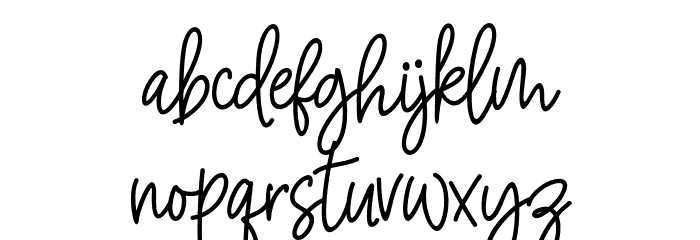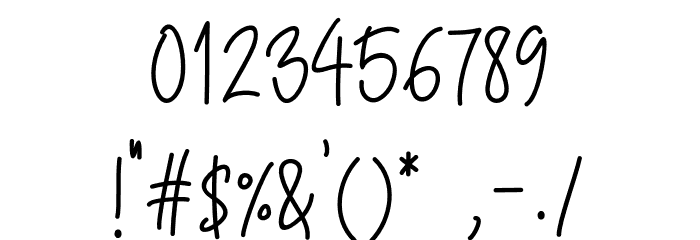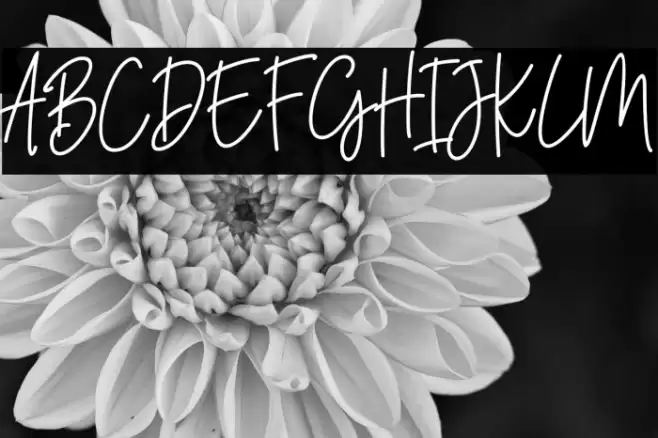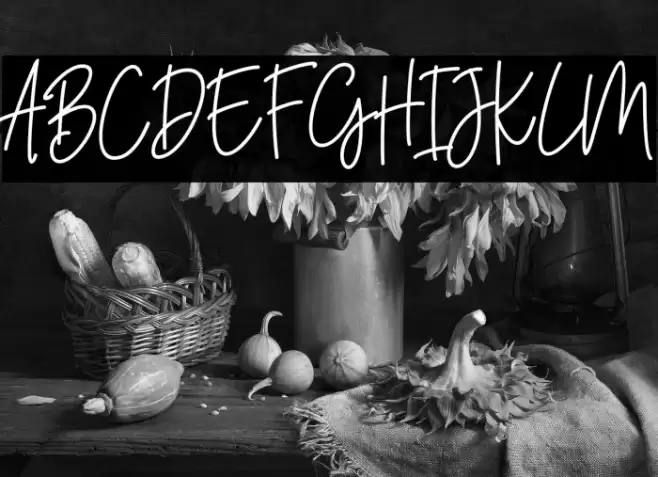
JahannamBalla Font
This font features a playful and casual handwritten style, characterized by its flowing and connected letterforms. The uppercase letters are tall and slightly narrow, with a consistent stroke width that gives a uniform appearance. The lowercase letters exhibit a more cursive style, with smooth curves and loops that enhance its informal and friendly look. The numerals are clear and legible, maintaining the same handwritten aesthetic. Special characters are integrated seamlessly, adding to the font's versatility. Overall, this font exudes a relaxed and approachable vibe, making it suitable for a variety of creative projects.
A playful, handwritten font with flowing, connected letterforms.
- Font: JahannamBalla
- Proposed Projects: Ideal for greeting cards, invitations, personal branding, and social media graphics.
- Category: Handwritten
- Overall Style: Casual
- Use Case: Headlines, Logos, Invitations